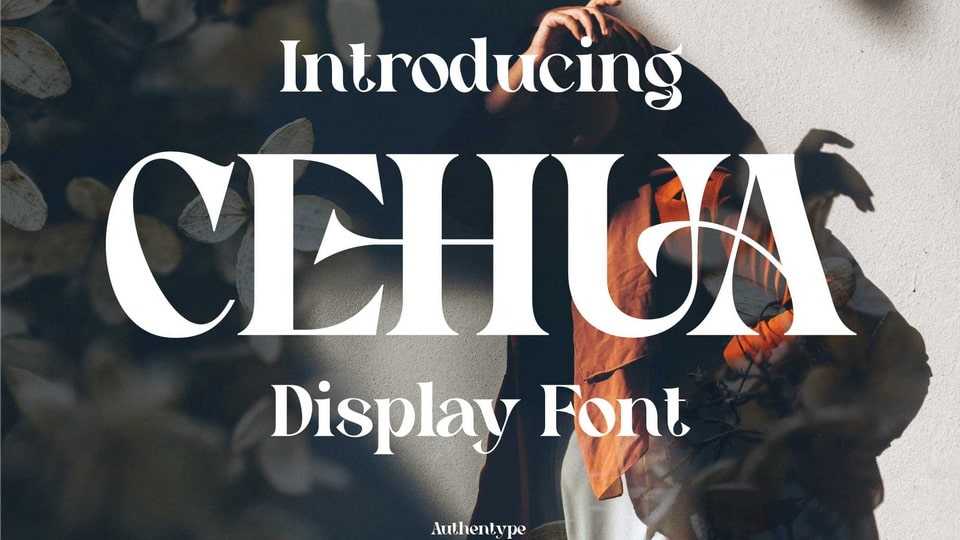
Download Cehua font, a beautiful and elegant high contrast serif typeface. Cehua works well for beauty product branding because it contains a variety of letters and ligatures that add a feminine feel to your designs.
Designer: Authentype